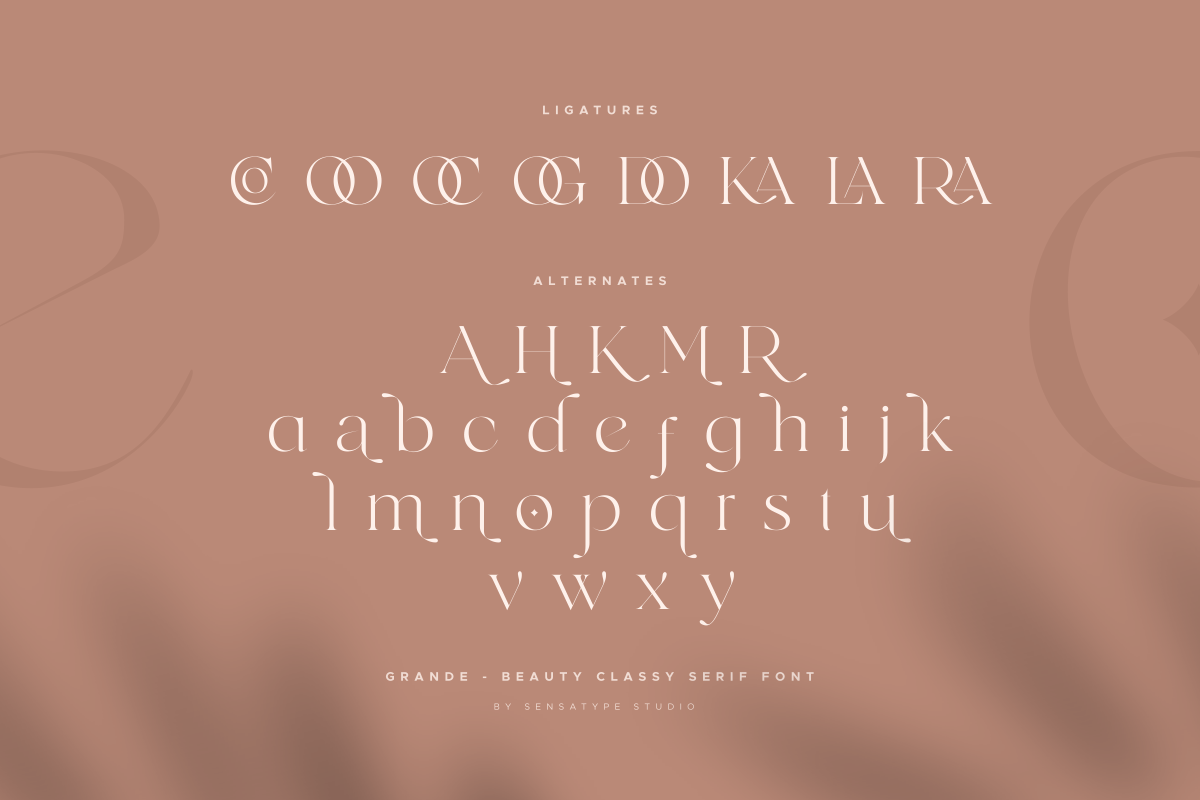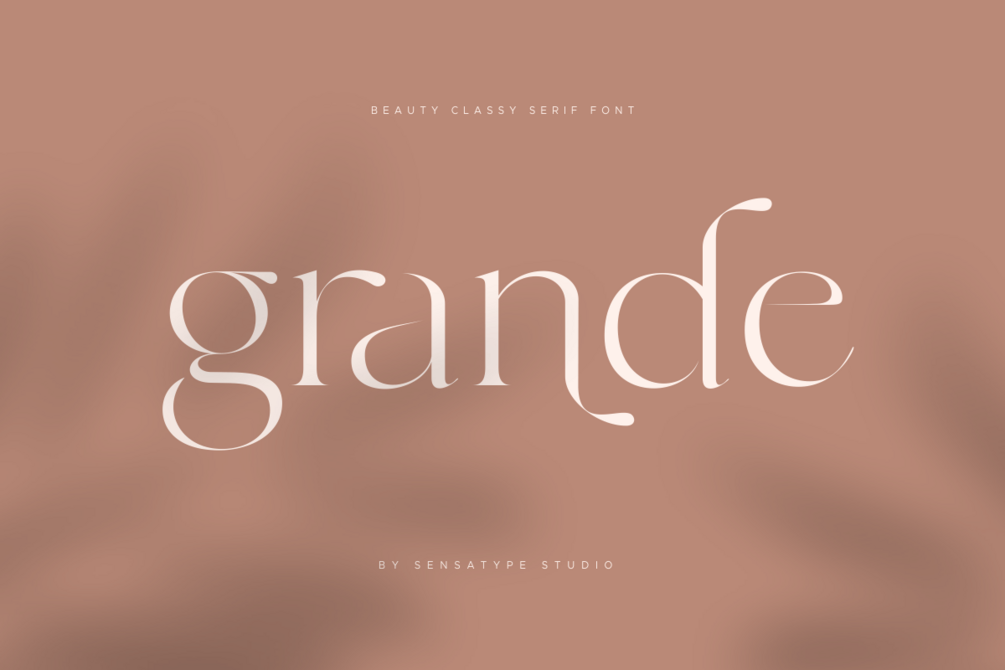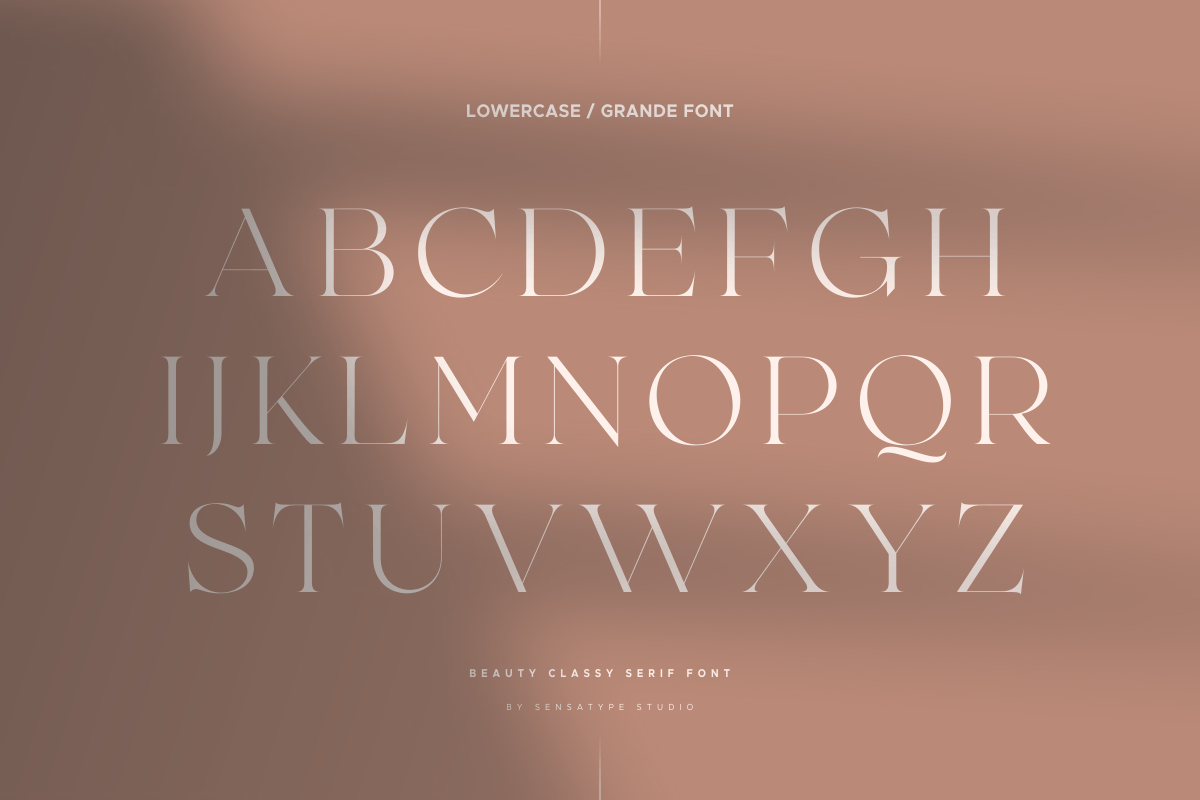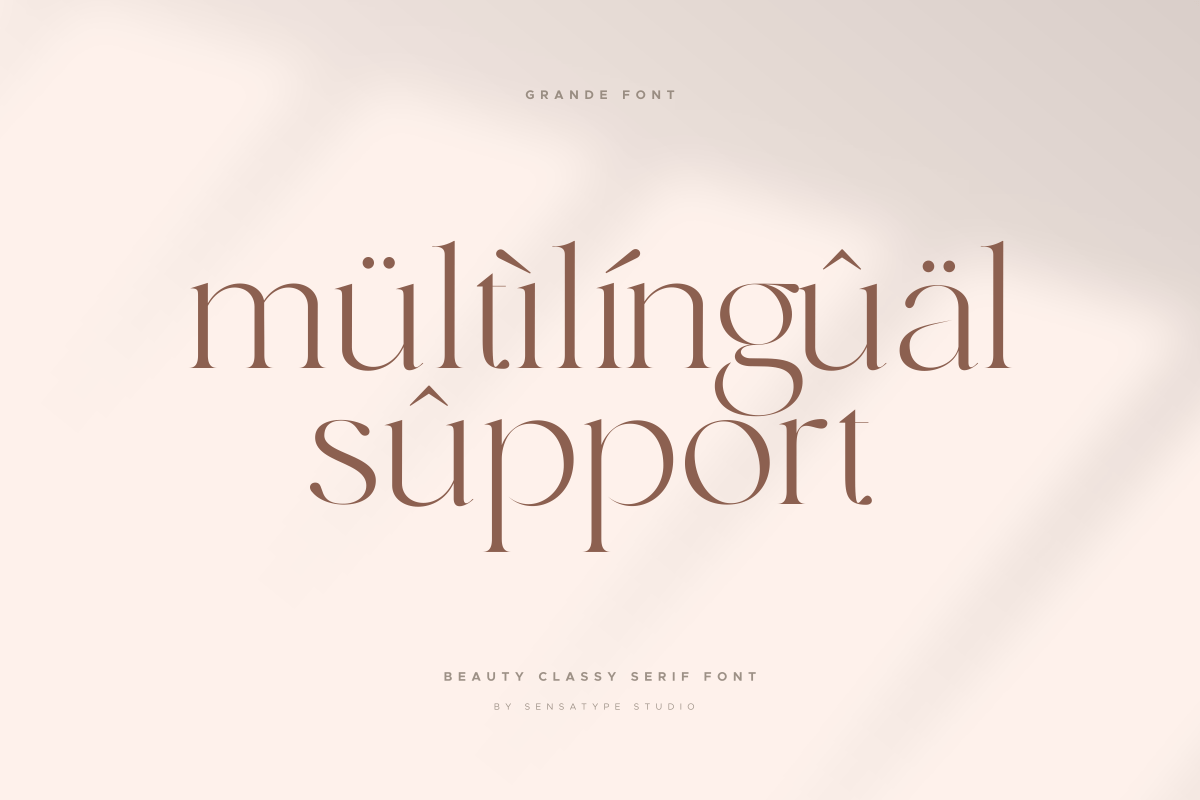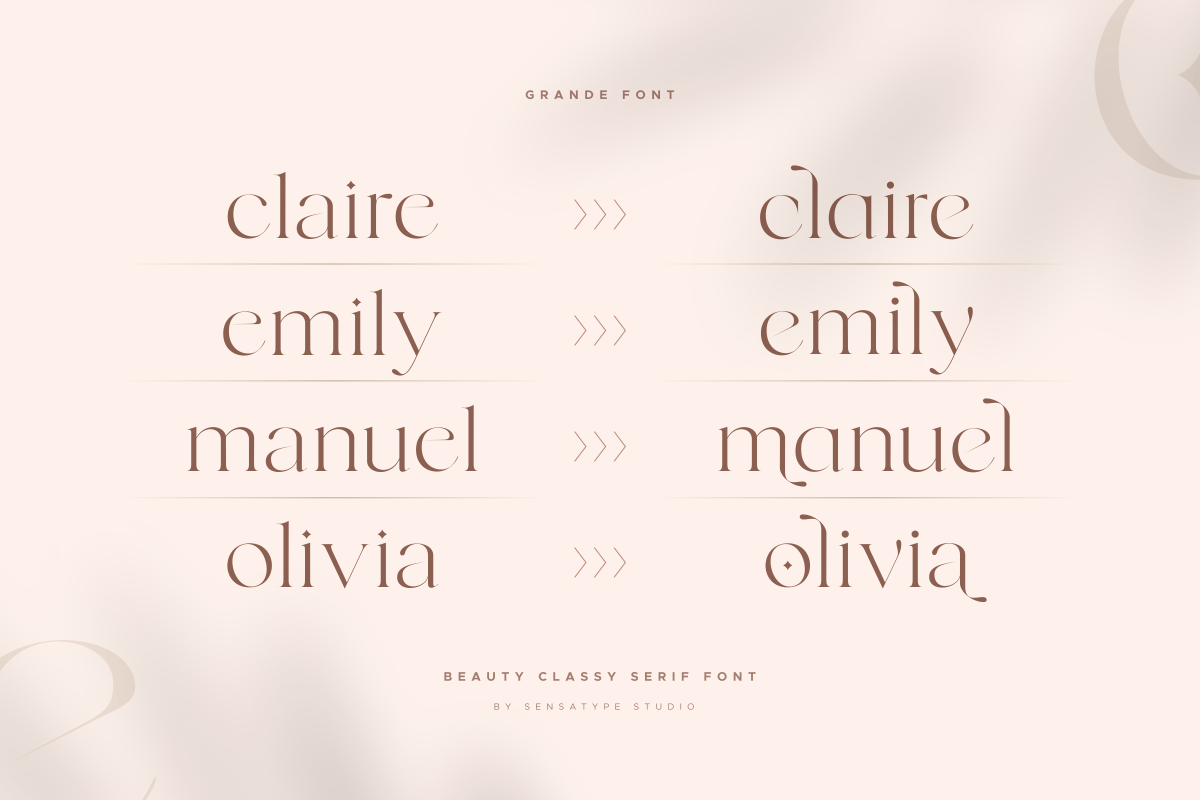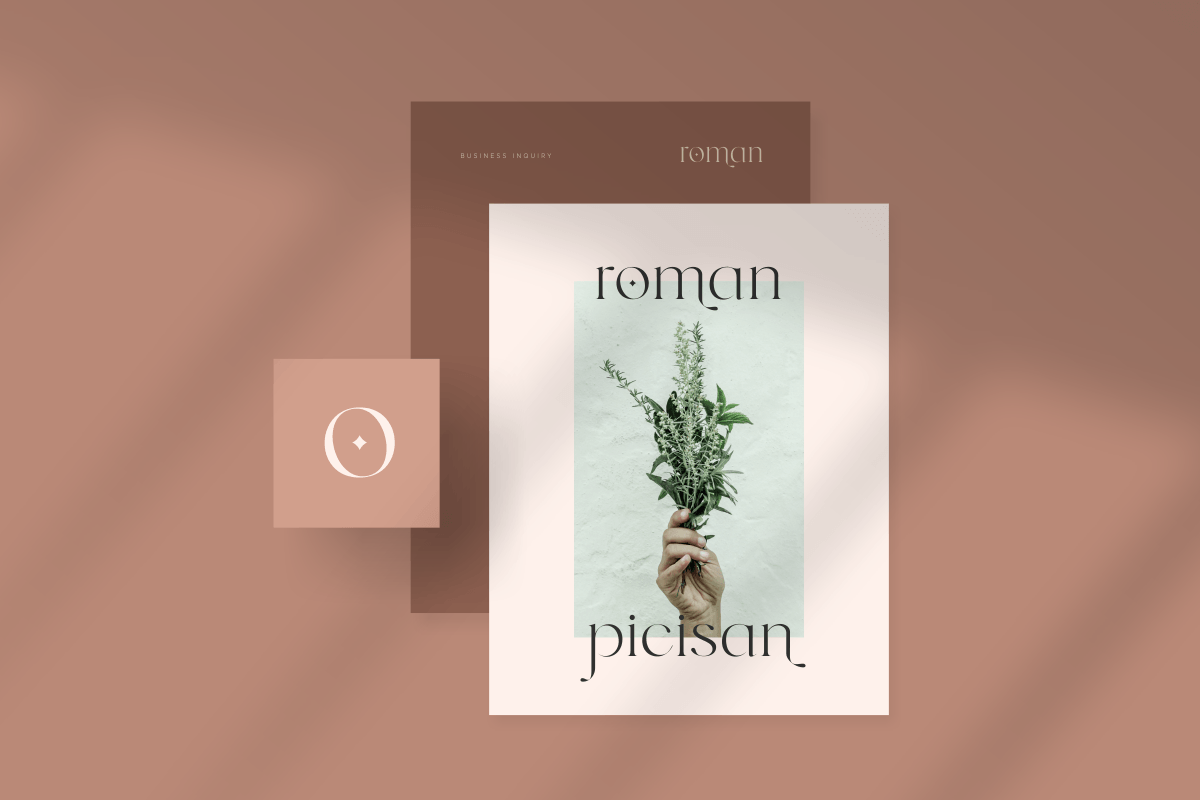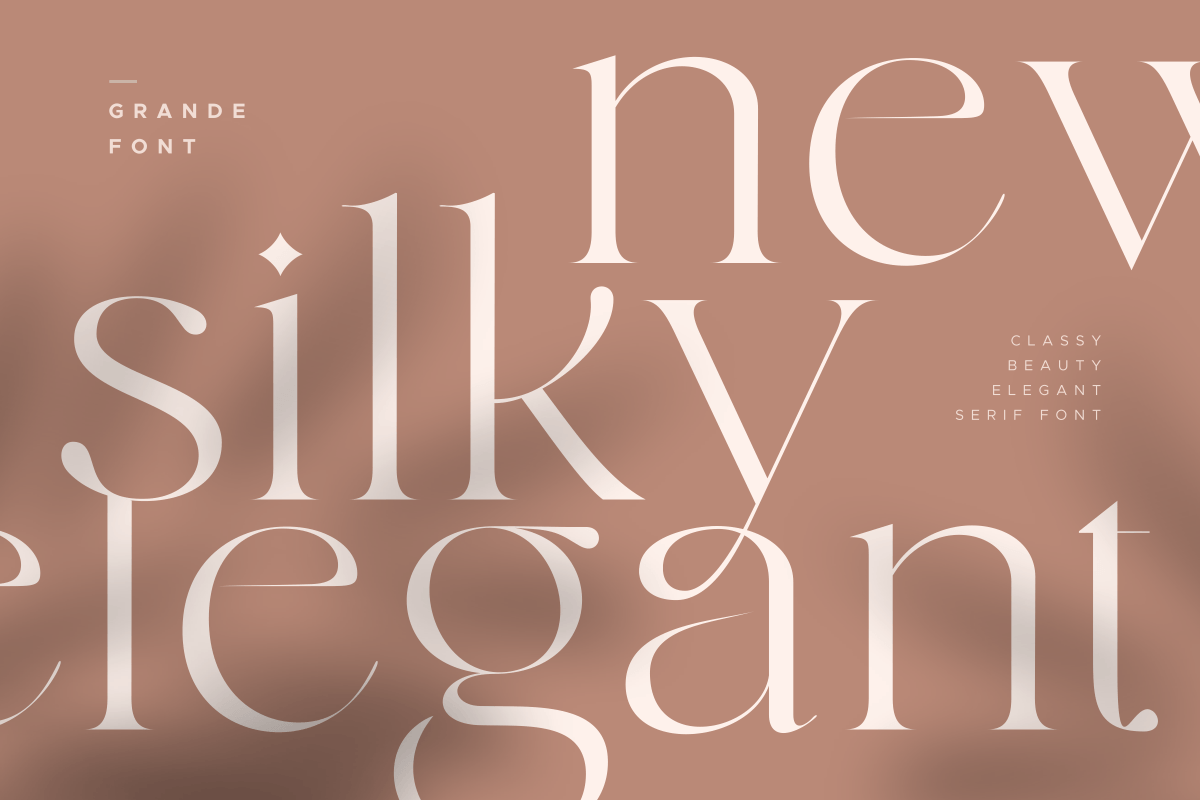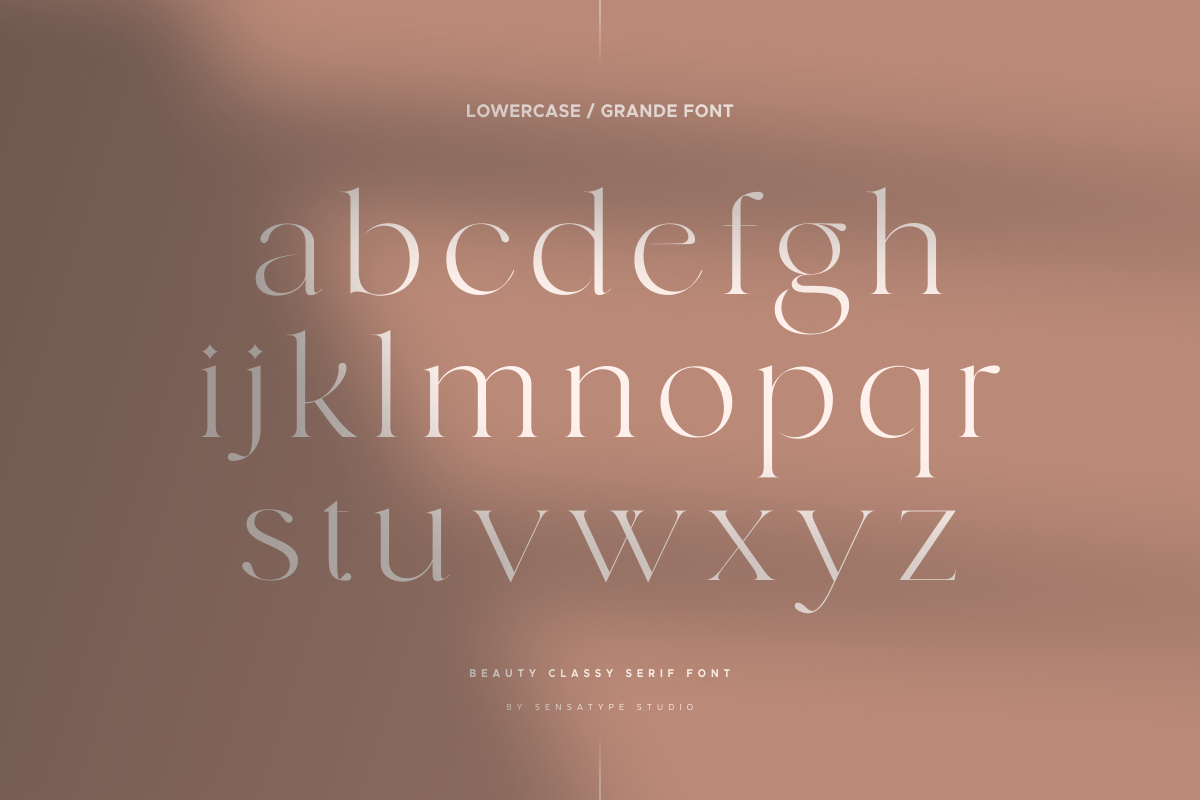
Grande - Beauty Classy Serif Font
Grande is a beauty classy serif font designed to bring elegance and sophistication to your projects. Ideal for branding, logos, packaging, social media, and editorial designs, it combines timeless serif charm with modern style.
With refined letterforms and excellent readability, Grande ensures your designs look polished and professional, suitable for both digital and print applications.
• Elegant and stylish serif character set
• Perfect for beauty branding, logos, and packaging
• Uppercase, lowercase, numerals, and punctuation included
• OpenType features for extra versatility
• Multilingual support